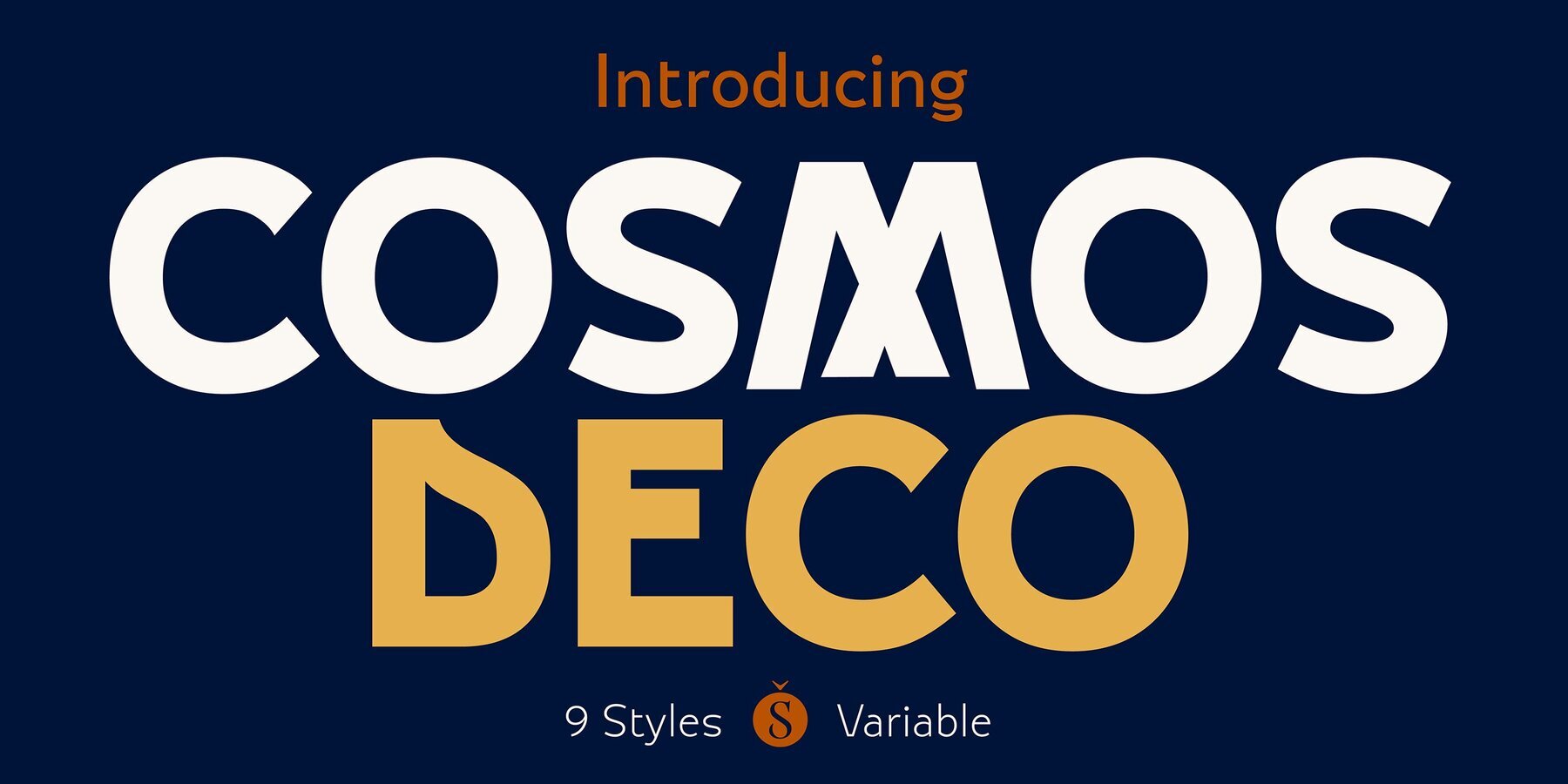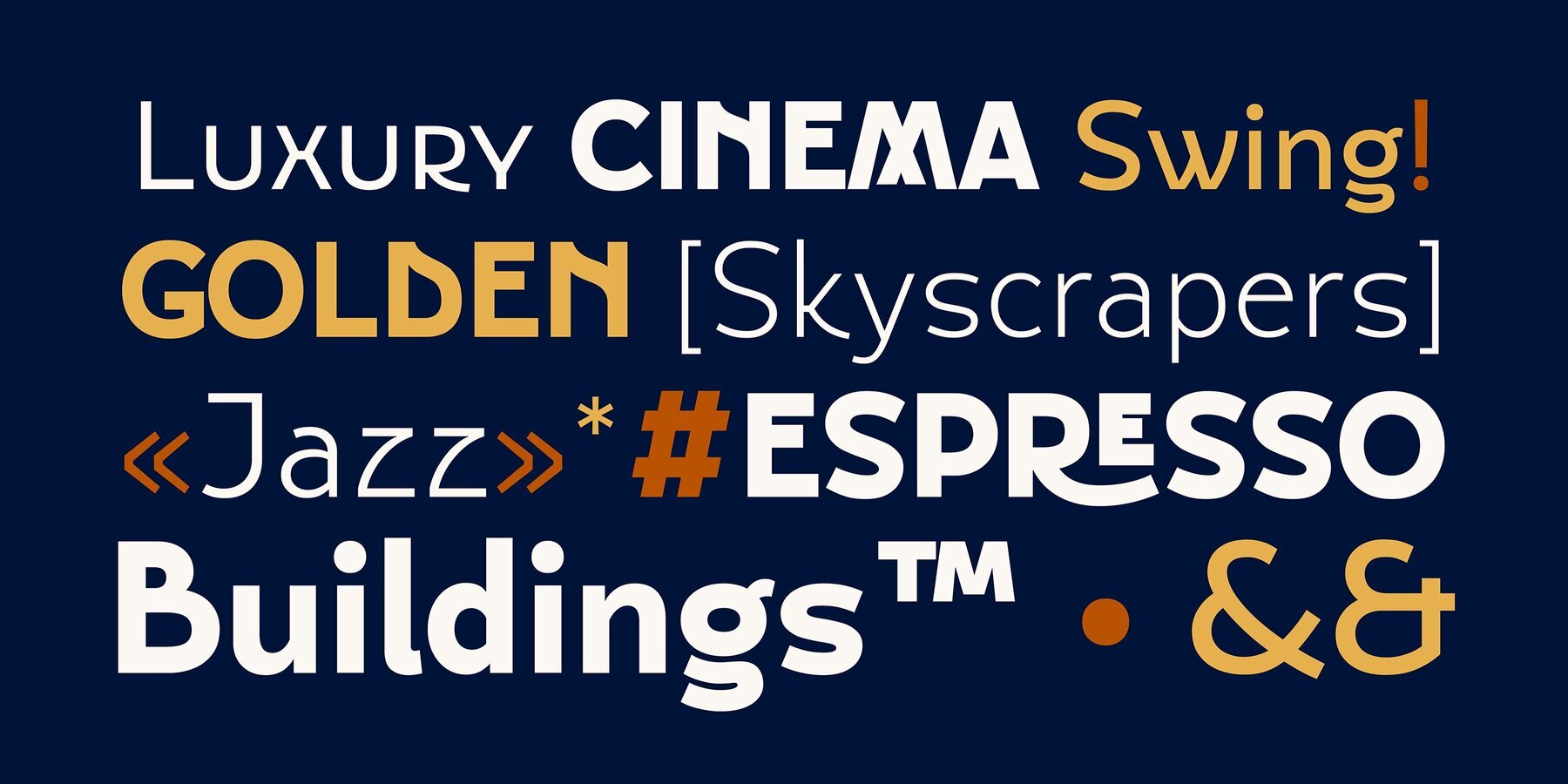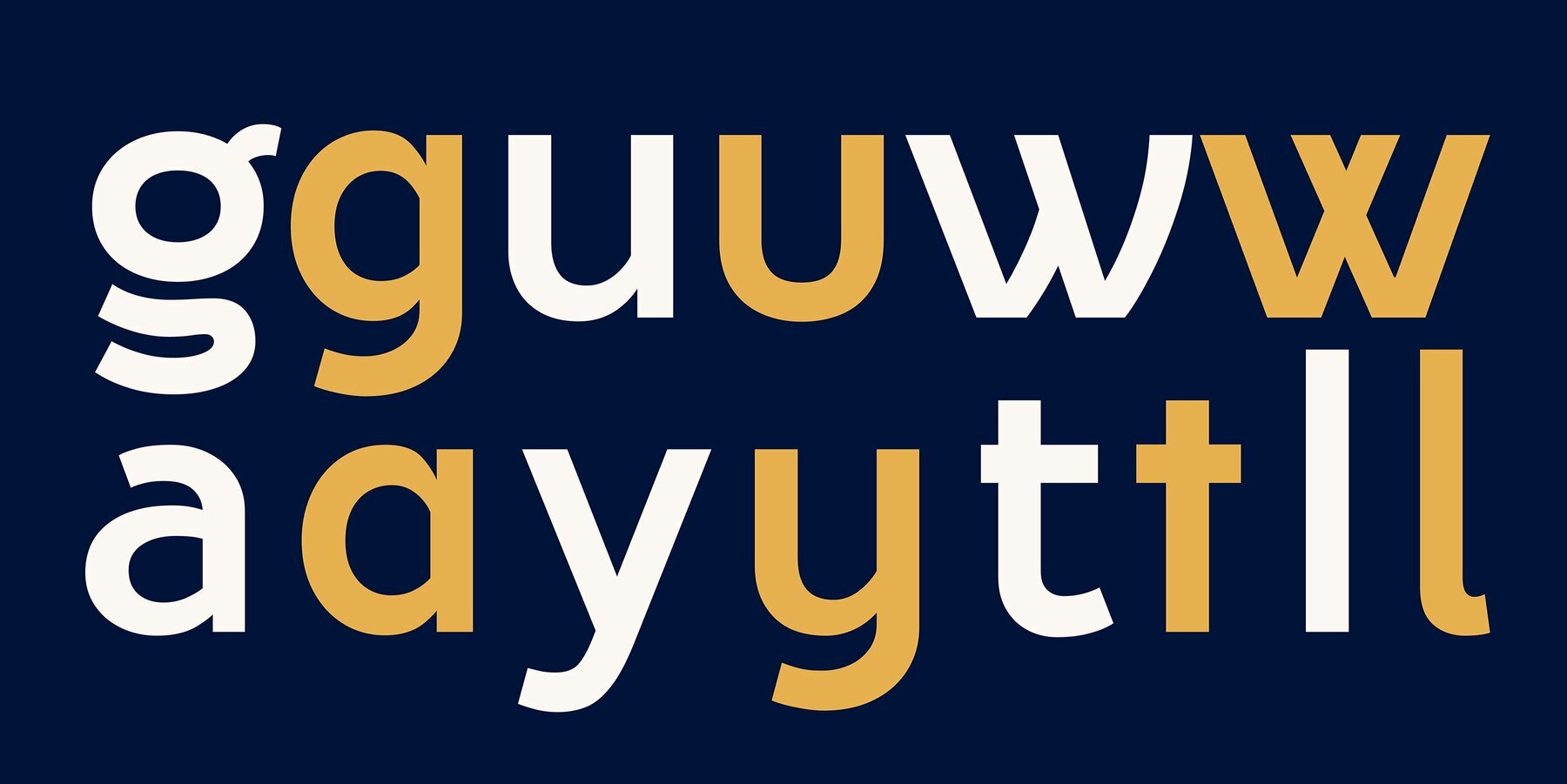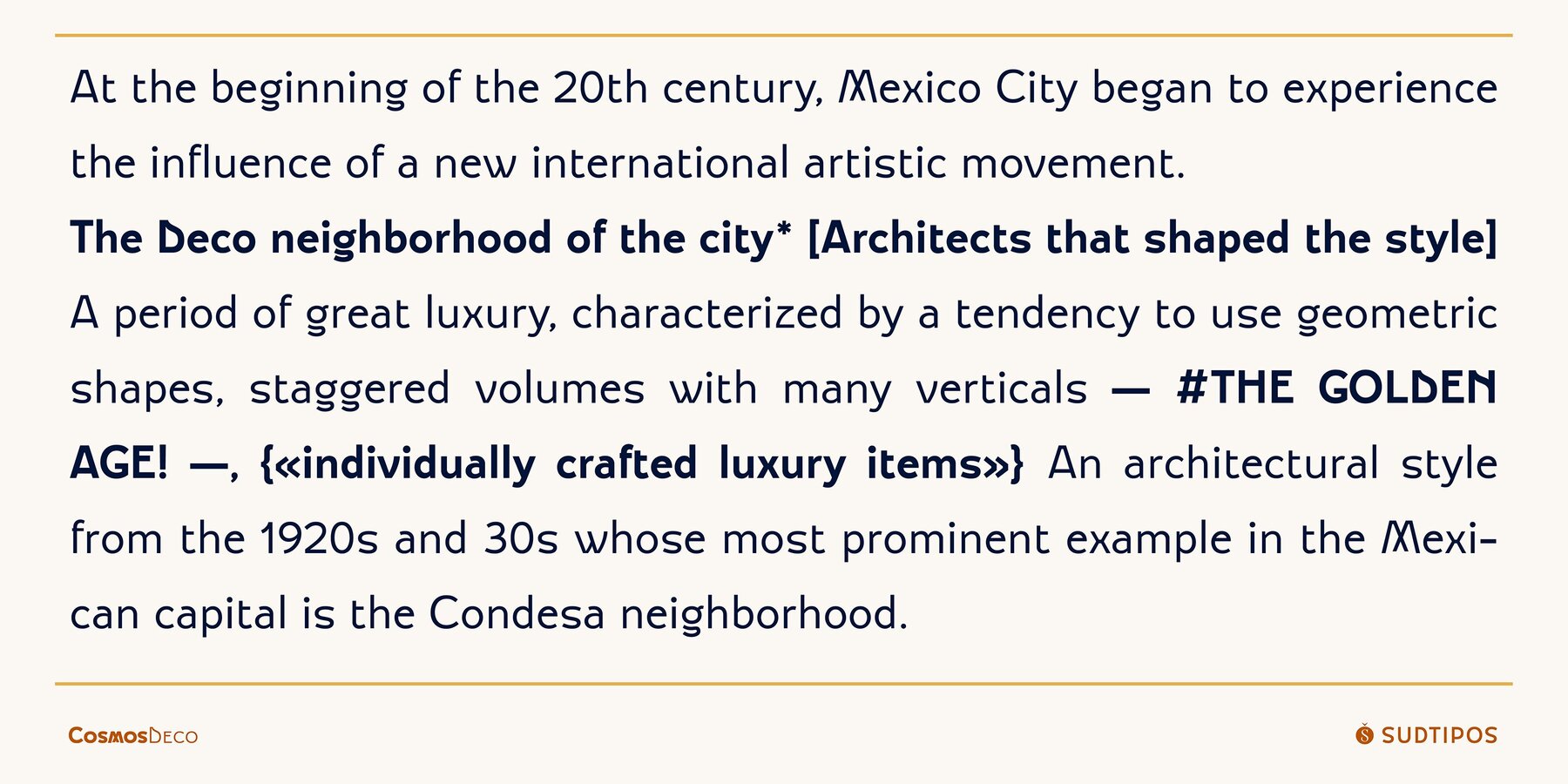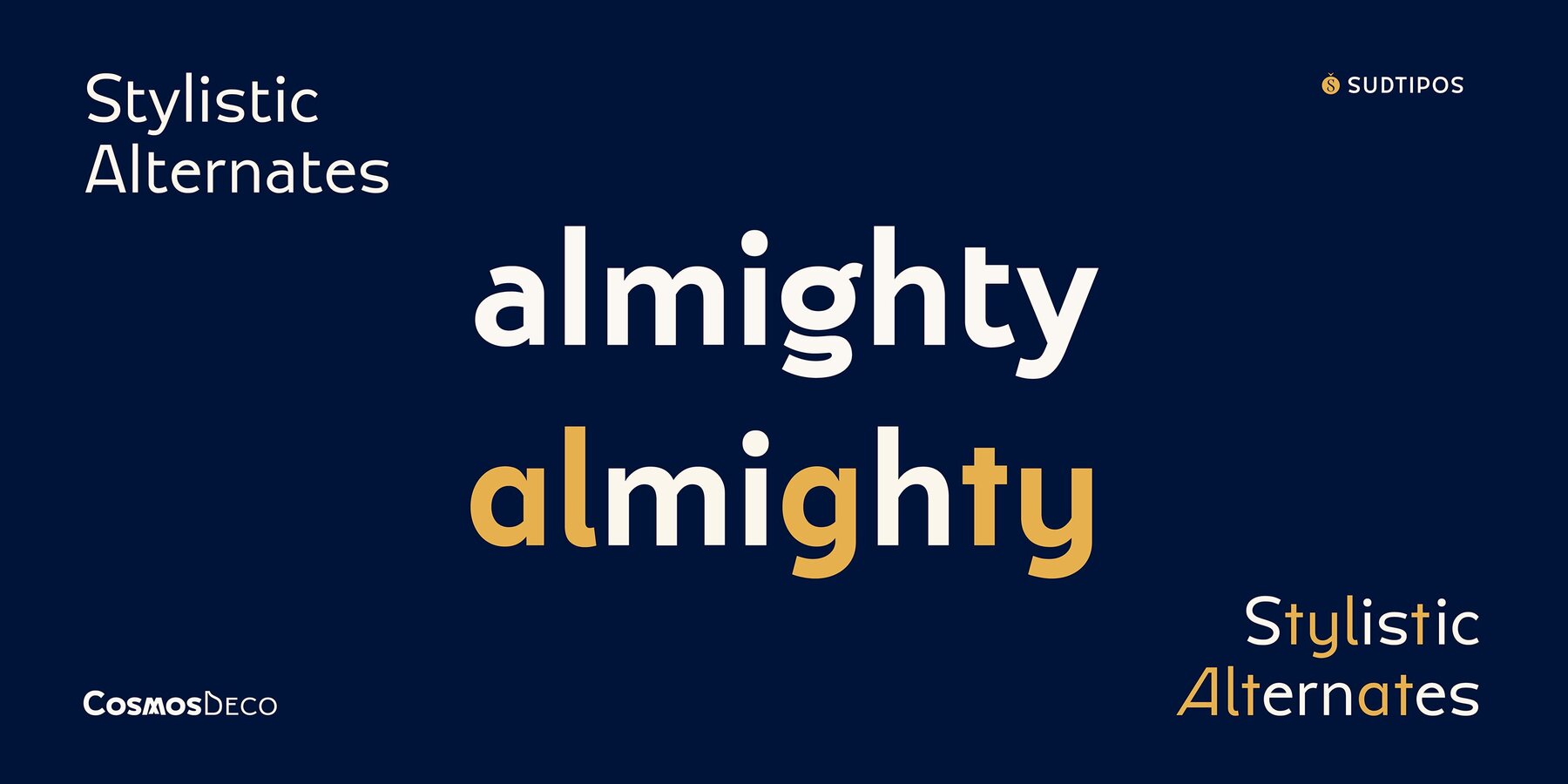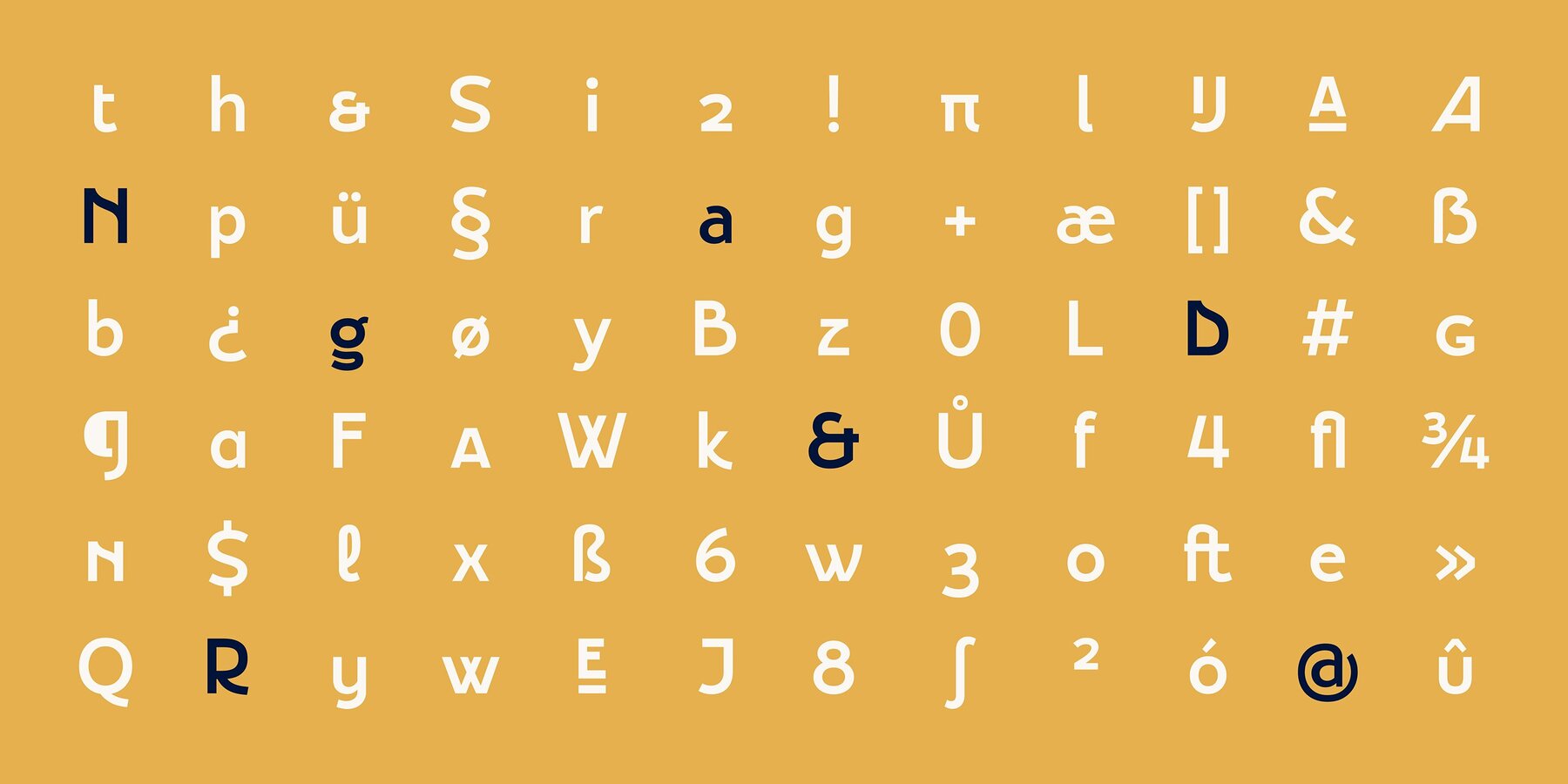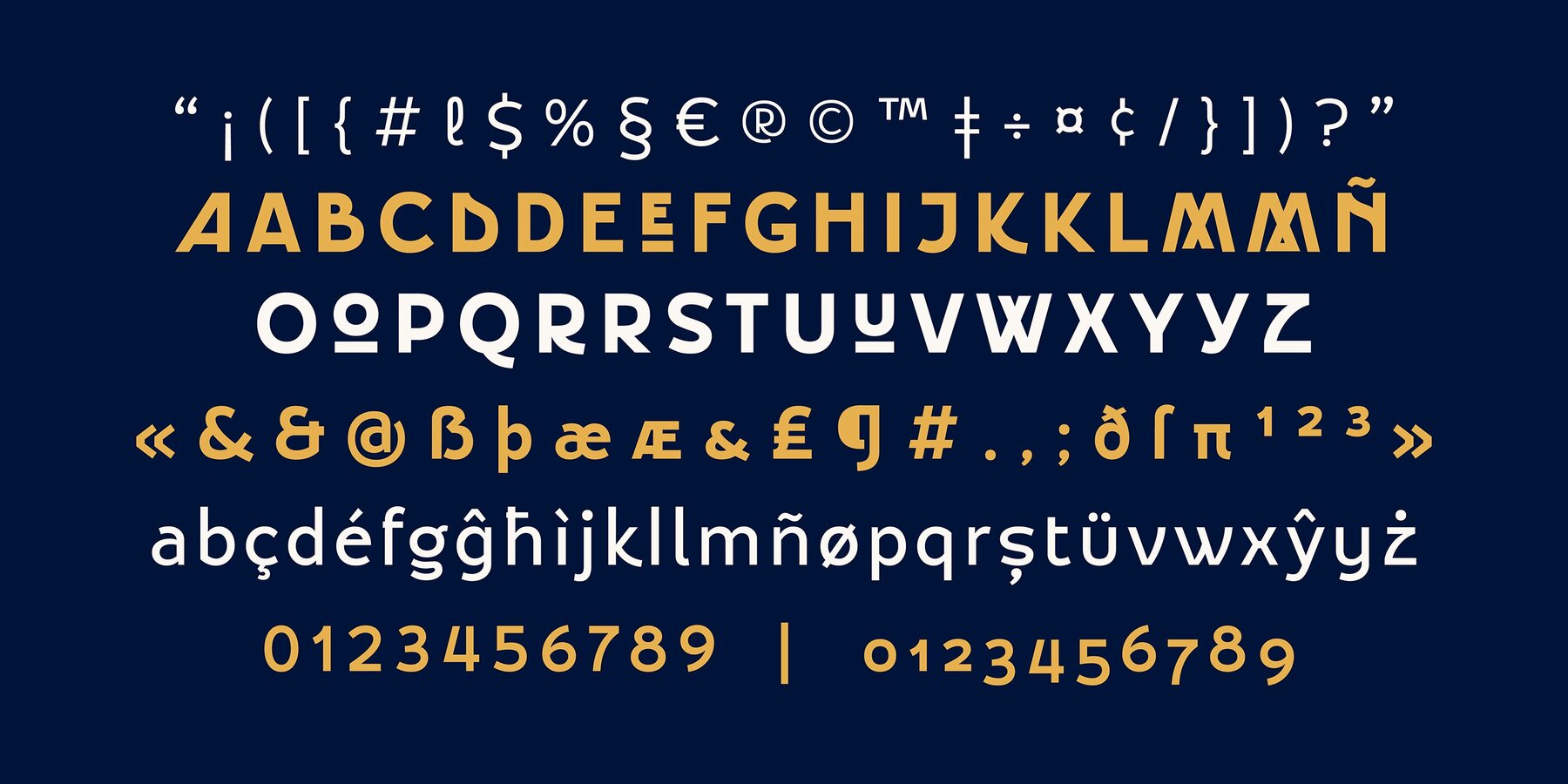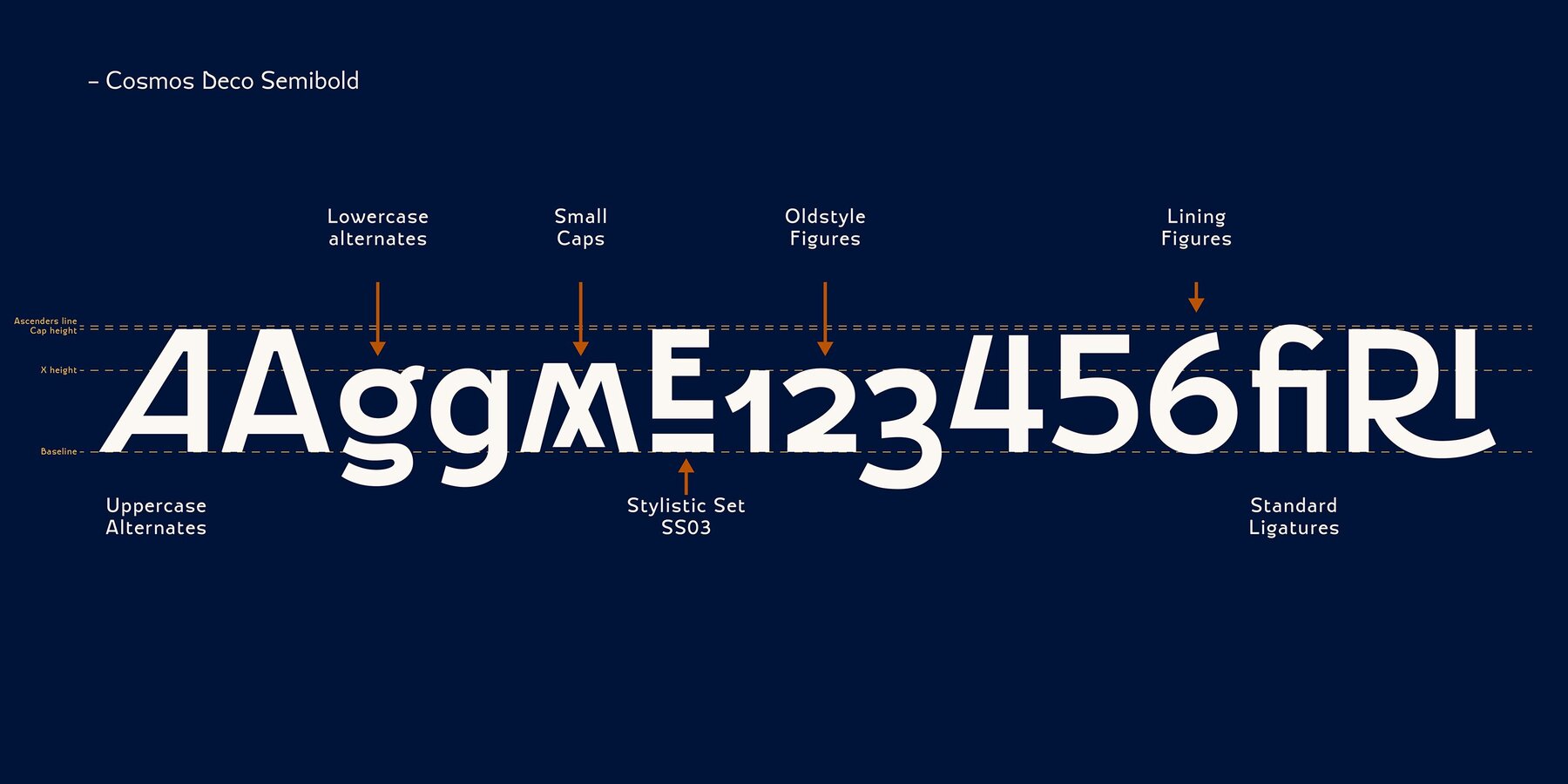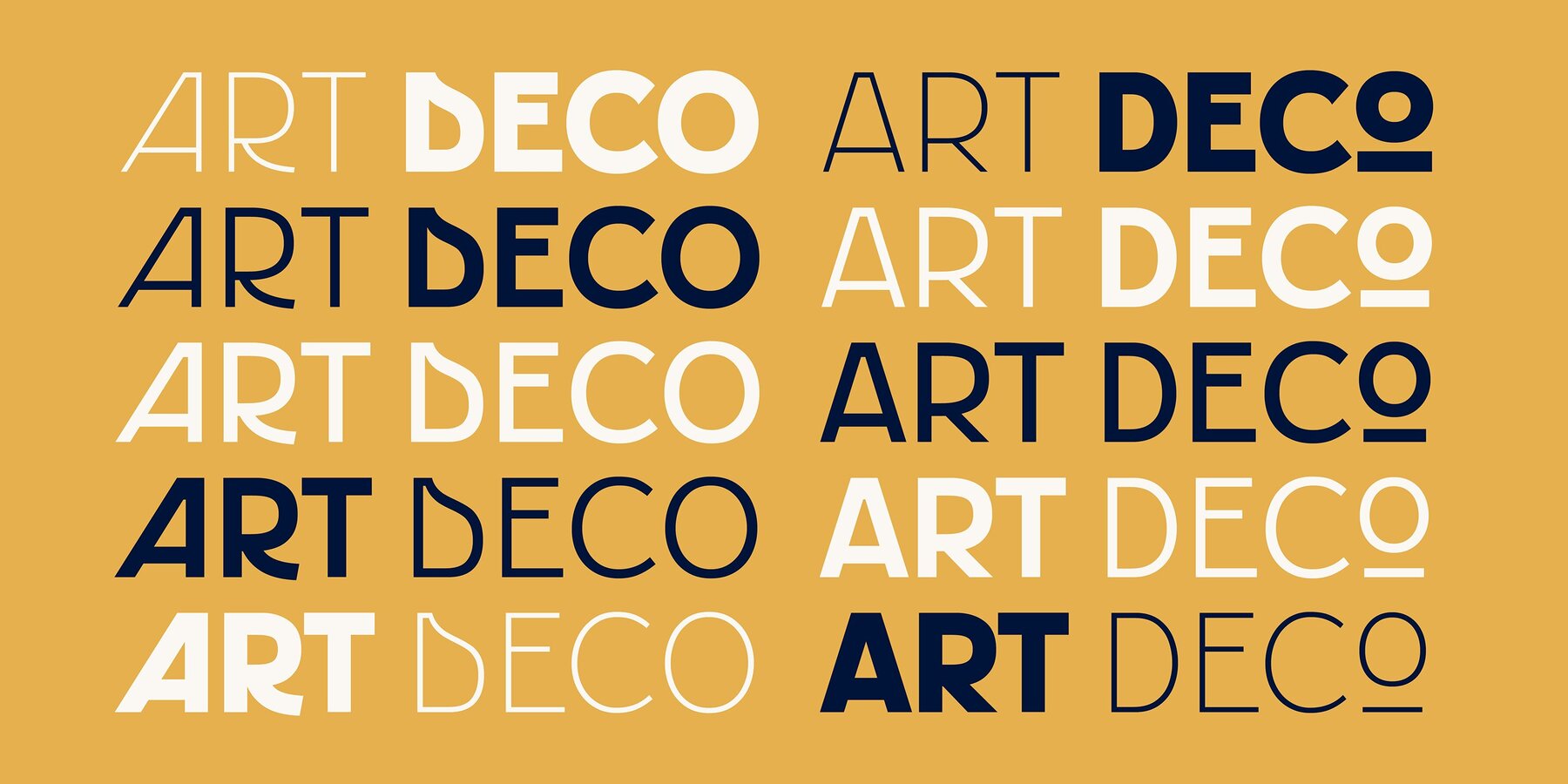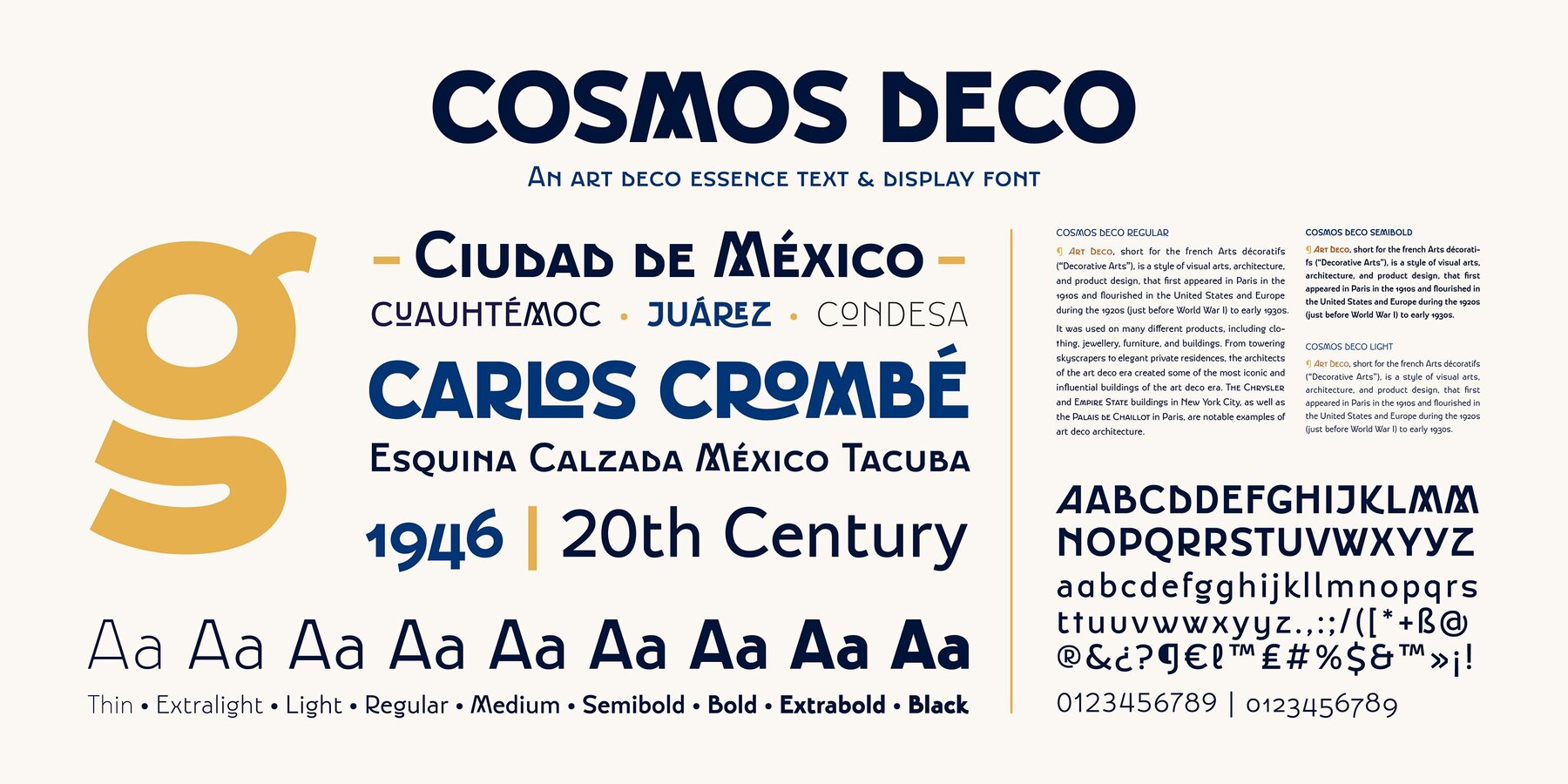
Cosmos Deco Font
Cosmos Deco is a sans-serif typeface inspired by architect Carlos Crombé's sketches for the original facade of the iconic Cine Cosmos, a symbol of Mexico's golden age of cinema. Its clean lines and bold curves capture the essence of Art Deco style, prevalent in the streets and buildings of early 20th-century Mexico City. The elegance and prominence of Cosmos Deco’s uppercase letters stand out, particularly in headings and titles, especially in heavier weights and larger sizes. Meanwhile, the lowercase characters offer clarity and comfort for extended text, thanks to their wide apertures, which enhance readability. With nine weights, over 800 glyphs, stylistic alternates, small caps, discretionary ligatures, tabular and old-style figures, Cosmos Deco boasts the versatility to be used across various editorial projects, branding, museum displays, and packaging. Whether maximizing the monumental personality of its uppercase or pairing with lowercase for body text, Cosmos Deco creates a visual impact that celebrates the aesthetics of Art Deco.